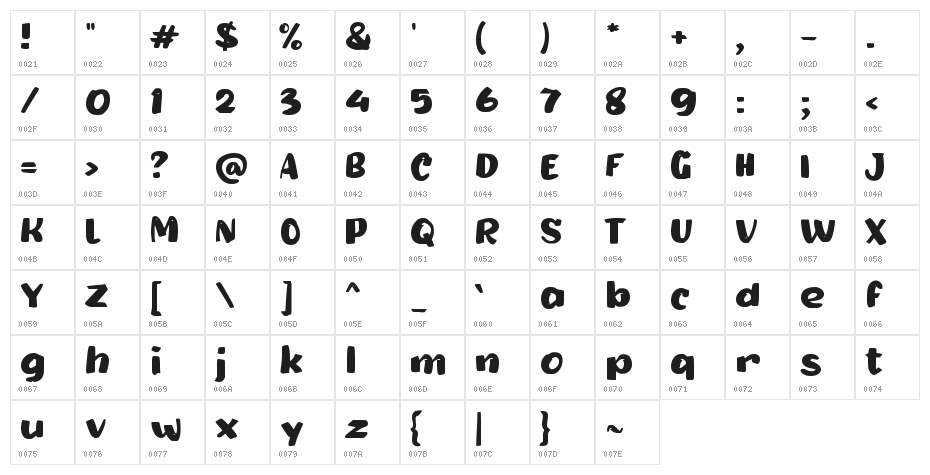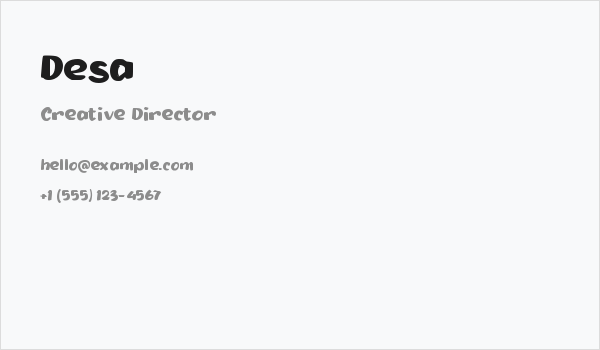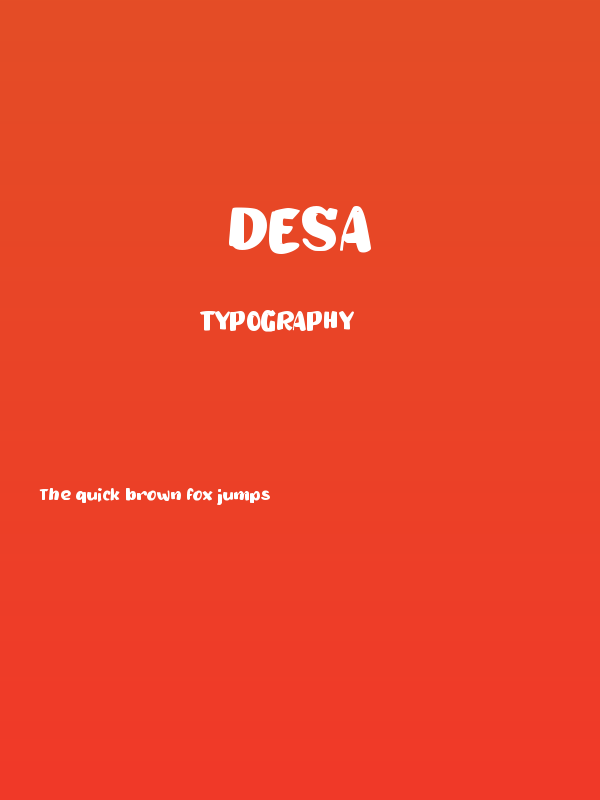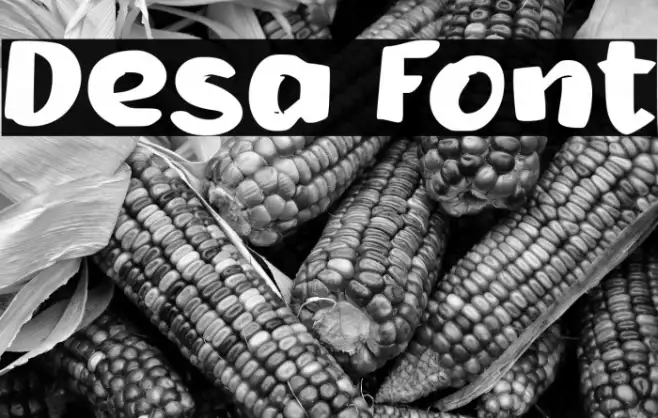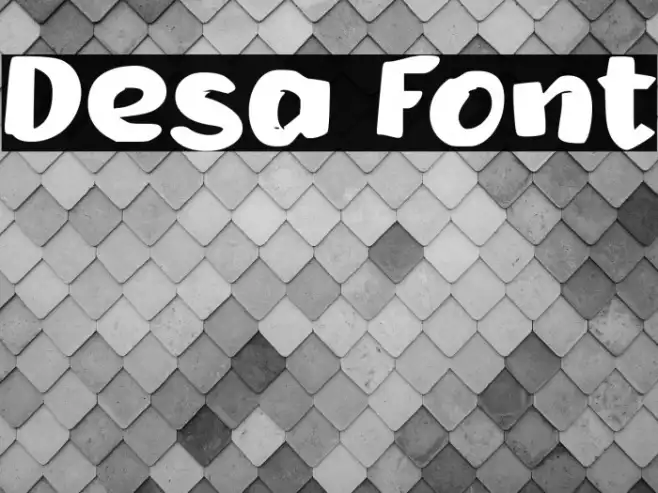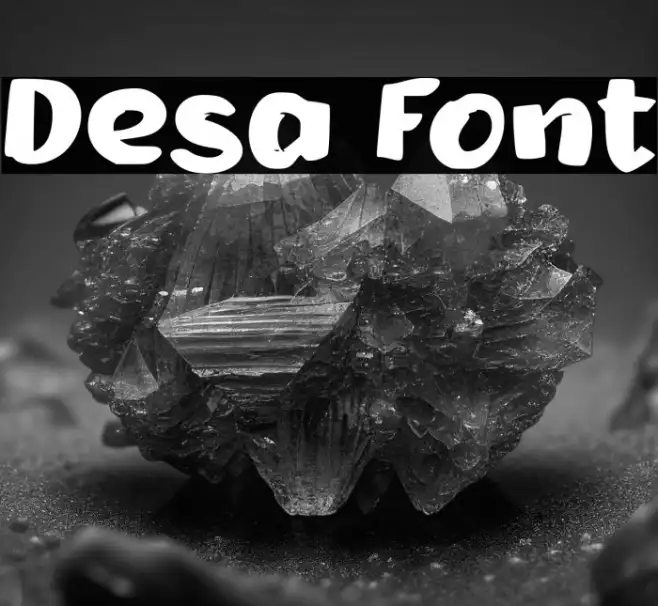
Desa Font
Desa Description
This font features a bold and playful style with rounded edges and a slightly irregular shape, giving it a hand-drawn appearance. The characters are thick and substantial, providing a strong visual impact. The uppercase and lowercase letters maintain a consistent style, with a whimsical and informal feel. The numbers and special characters are designed to match the overall playful aesthetic, making this font suitable for creative and fun projects. Its unique style is both eye-catching and approachable, making it ideal for designs that require a touch of personality and flair.
| Overall Style | Playful, Informal |
| Proposed Projects | Ideal for children's books, playful branding, posters, and creative invitations. |